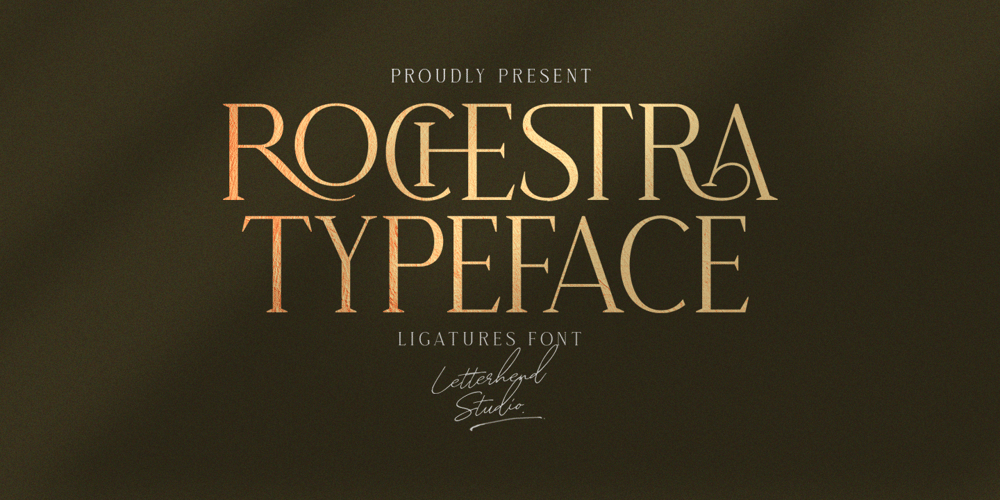
Rochestra Font Family was designed by Hendry Juanda and published by Letterhend. Rochestra contains 1 styles and family package options. Rochestra Typeface is a sophisticated serif unique ligature characters. Perfectly to be applied to the other various formal forms such as invitations, labels, logos, magazines, books, greeting / wedding cards, packaging, fashion, make up, stationery, novels, labels or any type of advertising purpose.Features : numbers and punctuation multilingual alternates PUA encoded We highly recommend using a program that supports OpenType features and Glyphs panels like many of Adobe apps and Corel Draw, so you can see and access all Glyph variations.